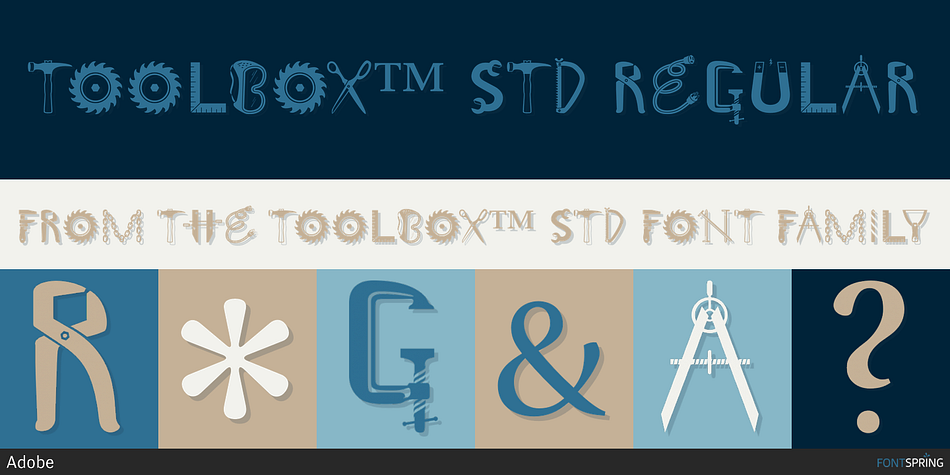
Nyx Std Regular Font What Font Is A decorative font featuring letters designed with tool and hardware motifs. this font creatively integrates various tools and hardware elements into the design of each letter, giving it a unique, industrial look. Toolboxstd font belongs to regular subfamily. font created by brian strysko. the font version is otf 1.018;ps 001.001;core 1.0.31;makeotf.lib1.4.1585 and its license is: copyright © 1993, 2001 adobe systems incorporated. all rights reserved. Toolbox by maxim bonenfant in fancy > decorative 65,219 downloads (7 yesterday) free for personal use download donate to author. Download for free toolbox std regular. check out examples of the toolbox std regular font at azfonts.
Toolbox邃 Std Regular Font What Font Is Toolbox std free download at free font zone! view character maps, sample text, and font features before downloading. find the perfect style for your designs right now, totally free and easy. Fontfamily toolbox std. fontsubfamily regular. Toolbox™ std is a novelty font published by adobe. brian strysko, a graphic design student at california polytechnic state university, came up with an idea for a typeface crafted from everyday gadgets and tools. Toolboxstd otf 1.018;ps 001.001;core 1.0.31;makeotf.lib1.4.1585 font (font family name: toolbox std; font style name: regular), 286 characters in total.
Elefont Std Regular Font Download Commercial Whatfontis Toolbox™ std is a novelty font published by adobe. brian strysko, a graphic design student at california polytechnic state university, came up with an idea for a typeface crafted from everyday gadgets and tools. Toolboxstd otf 1.018;ps 001.001;core 1.0.31;makeotf.lib1.4.1585 font (font family name: toolbox std; font style name: regular), 286 characters in total.